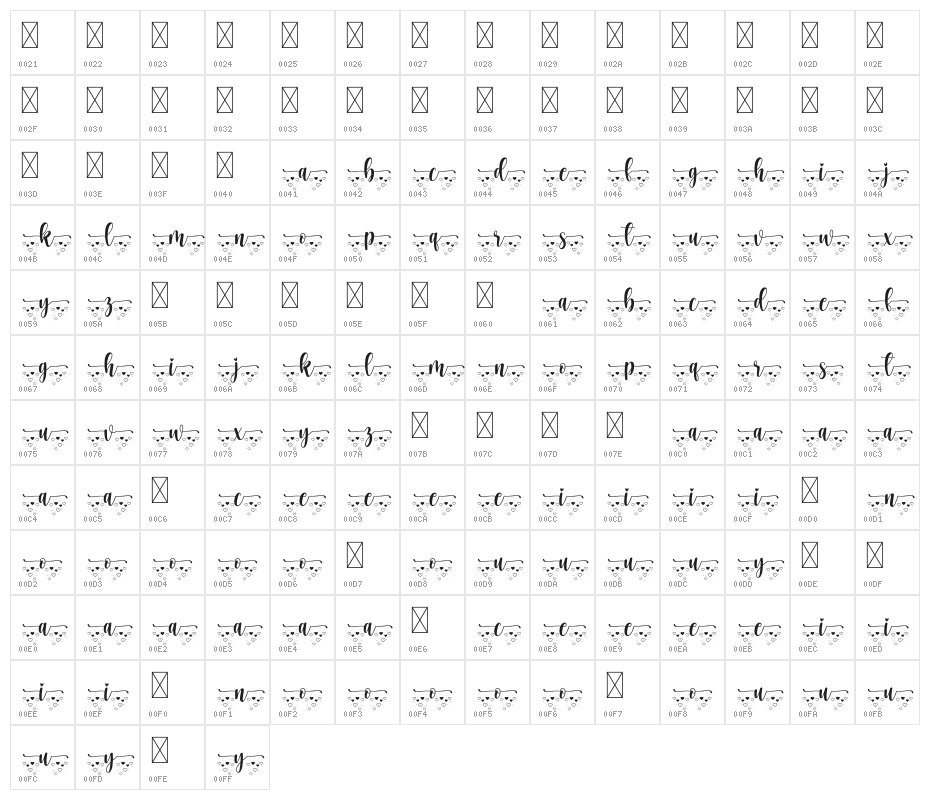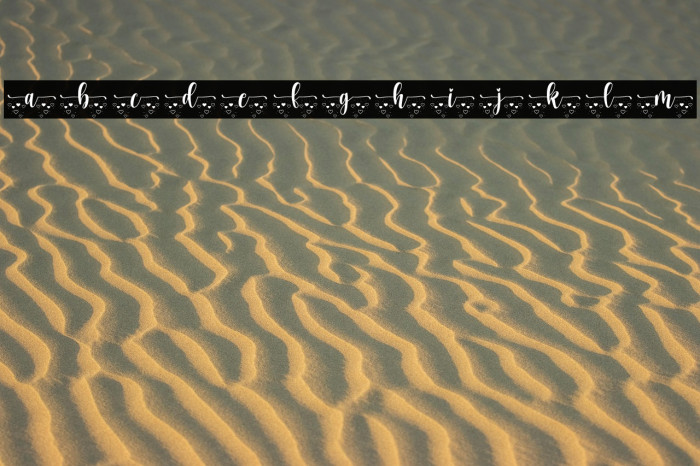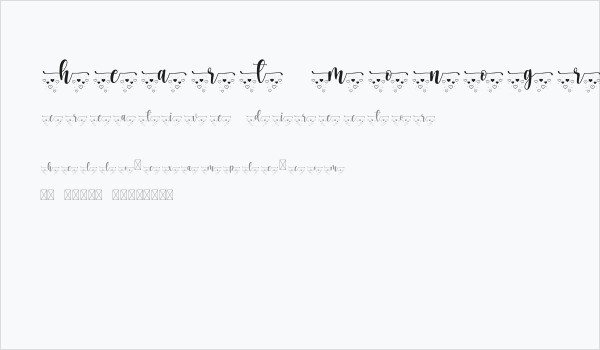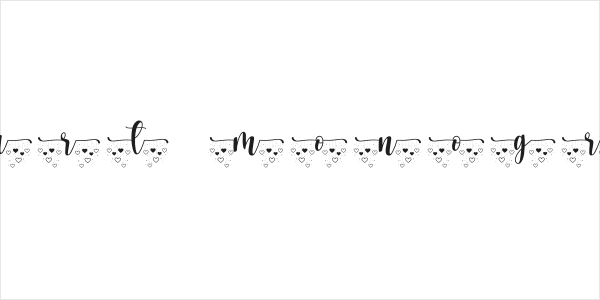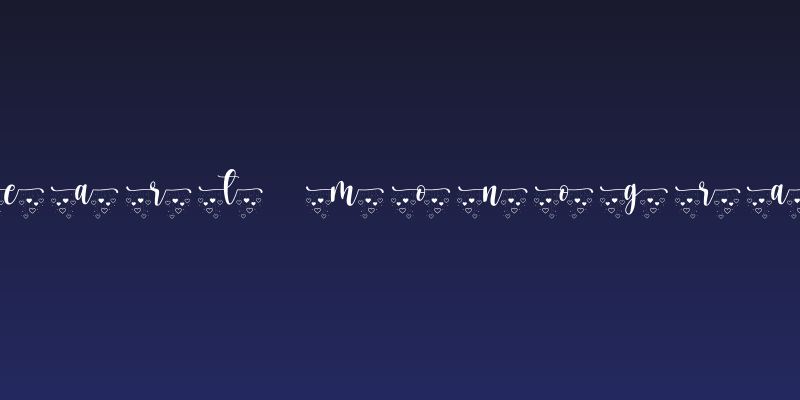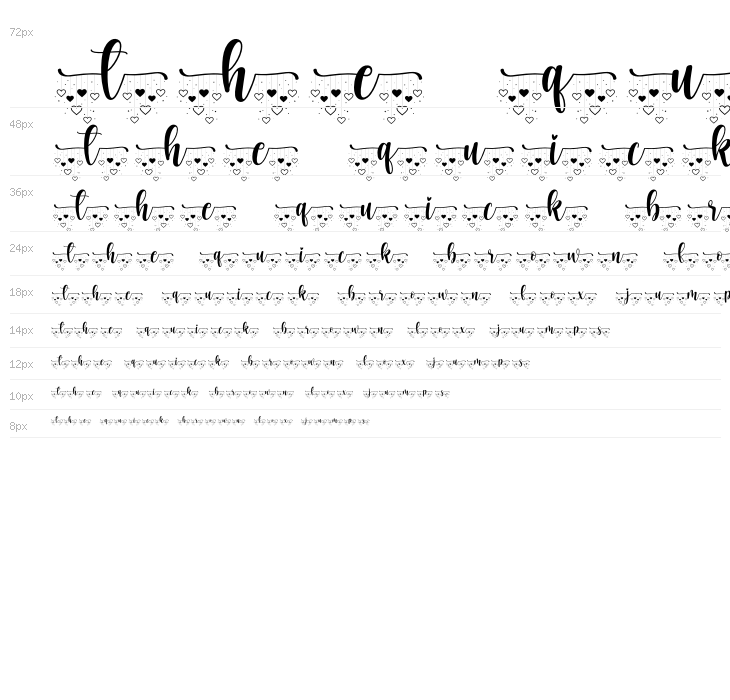
Heart Monogram Font
Heart Monogram Description
This font features a delicate and elegant script style, characterized by flowing, cursive letters that are adorned with small heart motifs. The design is highly decorative, with each character seamlessly connecting to the next, creating a continuous and harmonious appearance. The strokes are smooth and fluid, with a consistent thickness that adds to the overall graceful aesthetic. The inclusion of heart elements gives it a romantic and whimsical feel, making it ideal for projects that require a touch of elegance and charm.
| Use Case | Logos, Invitations, Decorative text |
| Proposed Projects | Ideal for wedding invitations, romantic greeting cards, personalized gifts, and decorative monograms. |